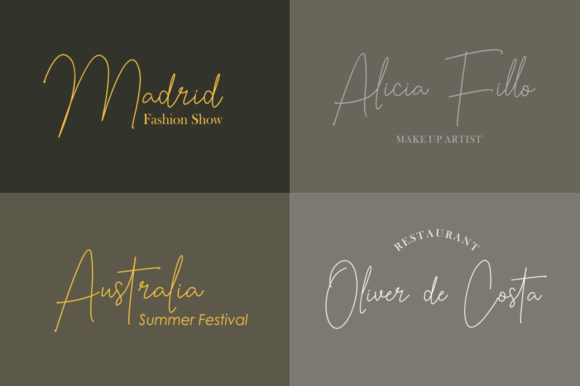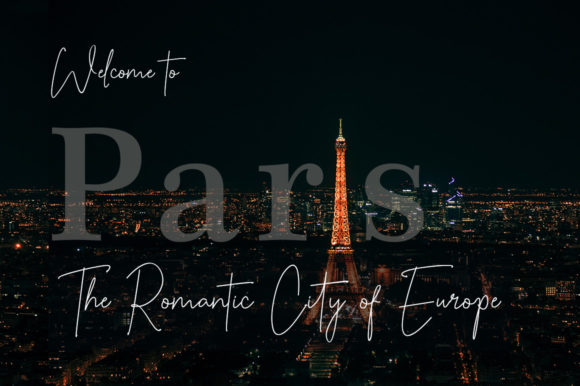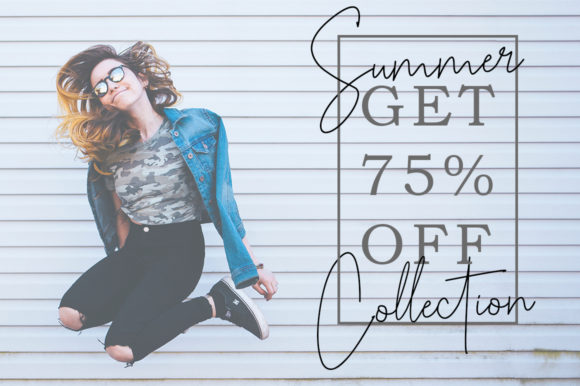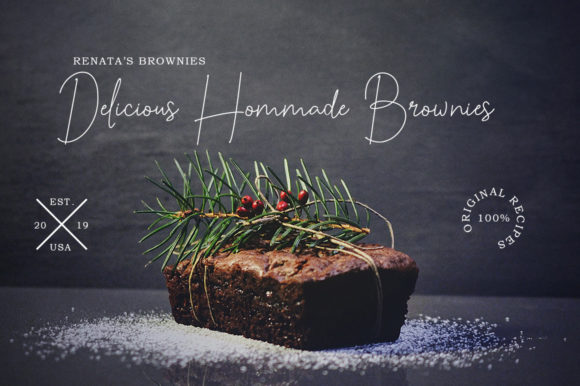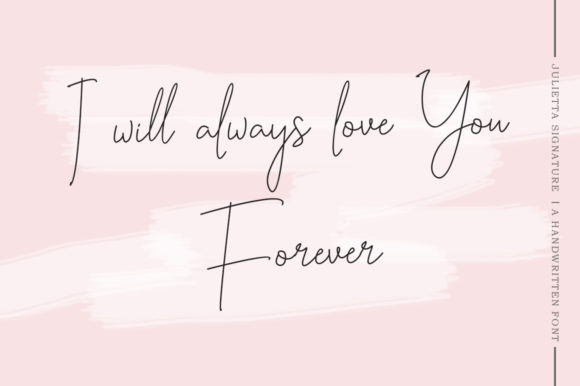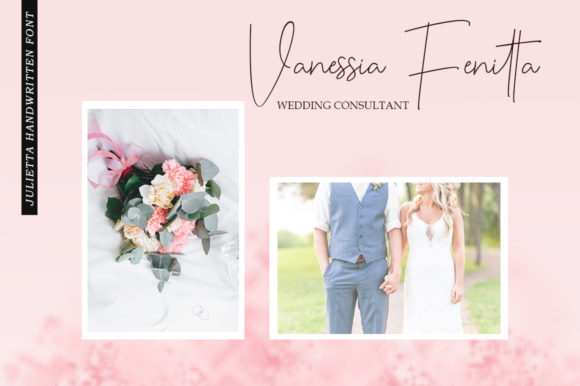
Introduction to Julietta Signature Font
As a designer, you know that sometimes the most creative moments come from a blank page or a blank canvas. For me, it was a particularly inspiring afternoon spent doodling in my notebook, trying to capture the perfect handwritten feel for a branding project. That’s when I stumbled upon the Julietta Signature Font – a game-changer that instantly elevated my design to a whole new level.
With its unique, cursive style, Julietta Signature Font is a valuable resource for designers looking to add a touch of personality to their creative projects. Whether you’re working on a personal or professional project, this font is sure to give you a stunning result. And the best part? It’s available for a free download, complete with a transparent background that makes it easy to integrate into your design.
Key Features of Julietta Signature Font
- High-quality, elegant script font perfect for creative projects and design resources.
- Features a unique, cursive design with subtle flair and swashes, adding a touch of sophistication to any project.
- Perfect for designers, artists, and writers looking for a stylish and professional font for their creative work.
Honest Review: Julietta Signature Font
I recently had the opportunity to use the Julietta Signature Font in a creative project, and I’m excited to share my honest review with you. This free download has been a game-changer for my design resource library.
What works well: ✨ The Julietta Signature Font is incredibly versatile and comes in a variety of weights, making it perfect for a range of creative projects. The high-quality design is evident in the crisp lines and elegant feel of the font. I particularly love the transparent background option, which allows for seamless integration into any design.
- High-quality design with crisp lines and elegant feel
- Transparent background option for seamless integration
- Various weights available for versatility
Overall, I’m thoroughly impressed with the Julietta Signature Font. It’s a valuable addition to any designer’s library, and I highly recommend it for personal projects. With its high-quality design and transparent background option, it’s a must-have resource for any creative project.
Tips for Getting the Most Out of Julietta Signature Font
For a high-quality look, use the Julietta Signature Font on a transparent background to create a seamless design. Experiment with different font sizes and styles to achieve the desired creative project outcome.
The Julietta Signature Font is perfect for:
- Logo design and branding
- Stationery and business cards
- Web design and e-commerce
Alternatives to Julietta Signature Font
The Alex Brush Font is a high-quality, elegant script font perfect for creative projects that require a touch of sophistication. It features a beautiful, handwritten style with a transparent background, making it ideal for use on a variety of design resources, from business cards to wedding invitations.
Comparison to Julietta Signature Font: While both fonts are elegant and sophisticated, Alex Brush Font has a more classic and timeless feel, whereas Julietta Signature Font is more modern and sleek. Alex Brush Font is also more versatile and can be used for a wider range of creative projects.
The Great Vibes Font is a modern, elegant script font that is perfect for designers looking for a high-quality font for their creative project. It features a beautiful, handwritten style with a transparent background, making it ideal for use on a variety of design resources, from social media graphics to product packaging.